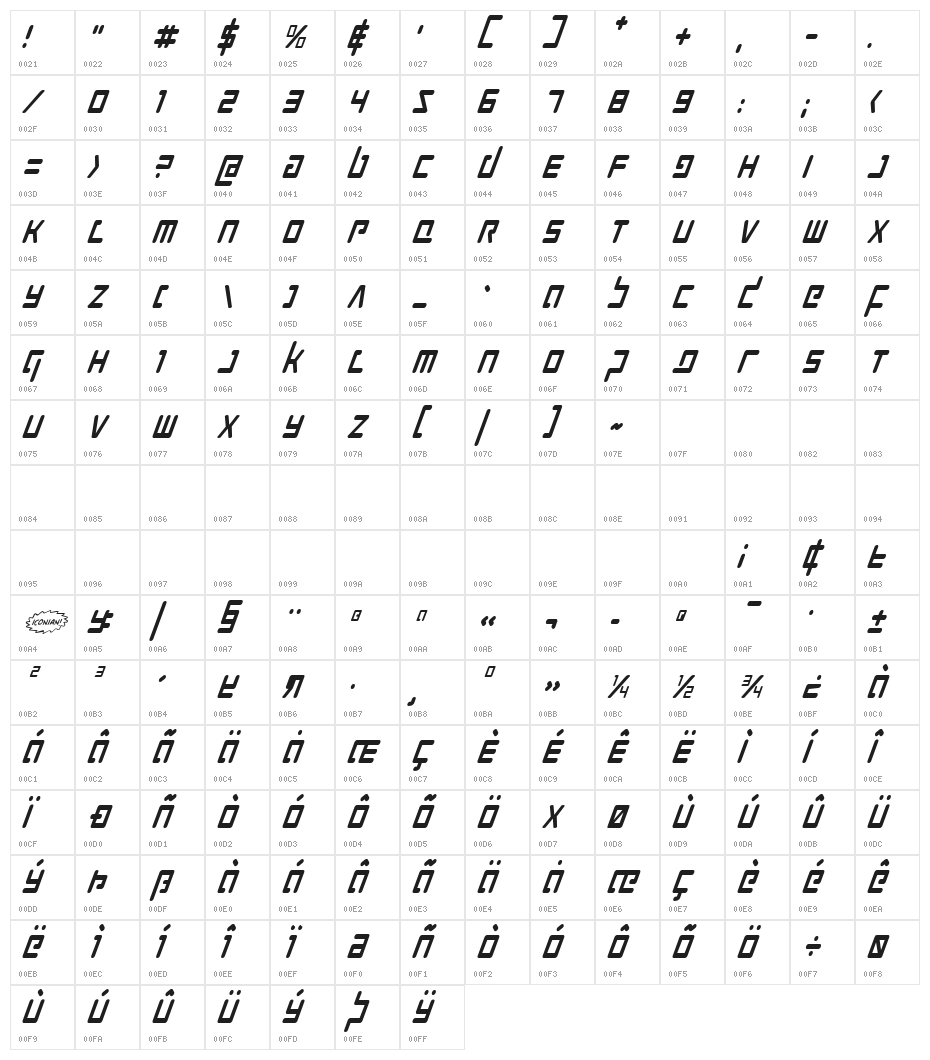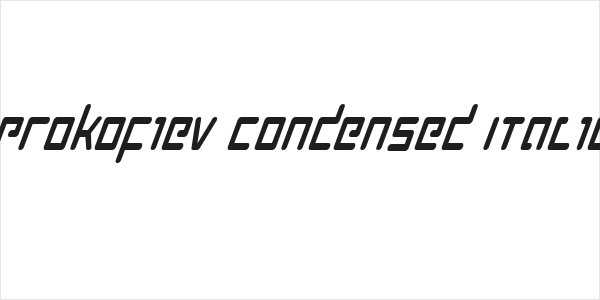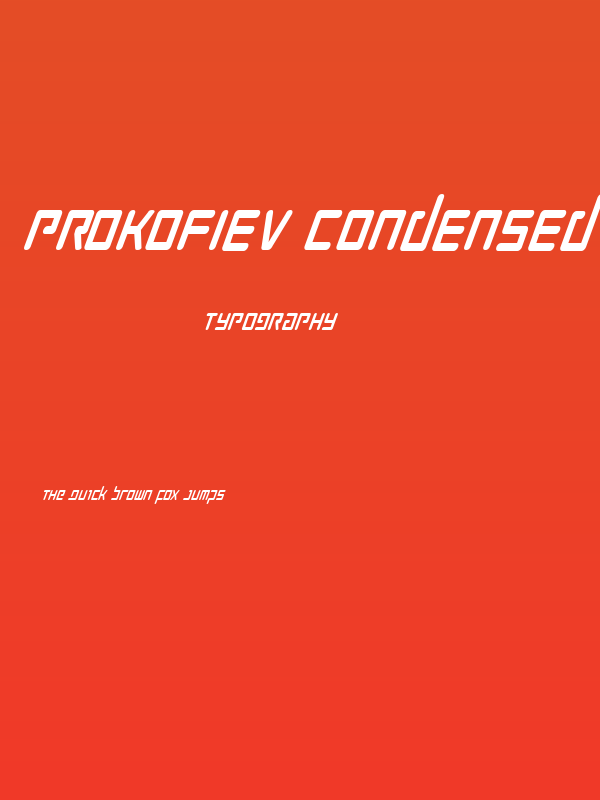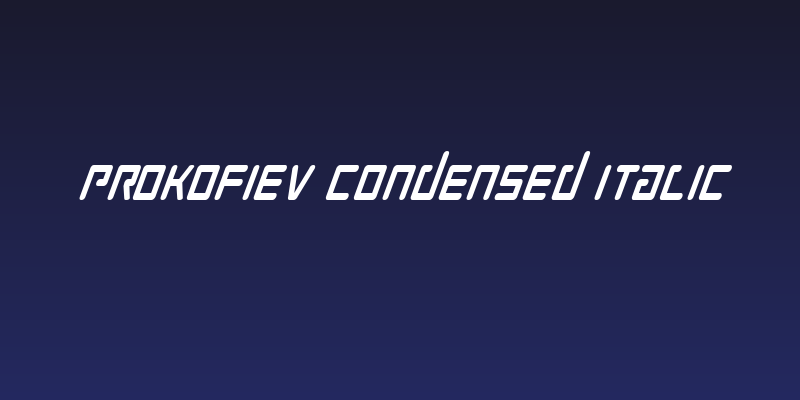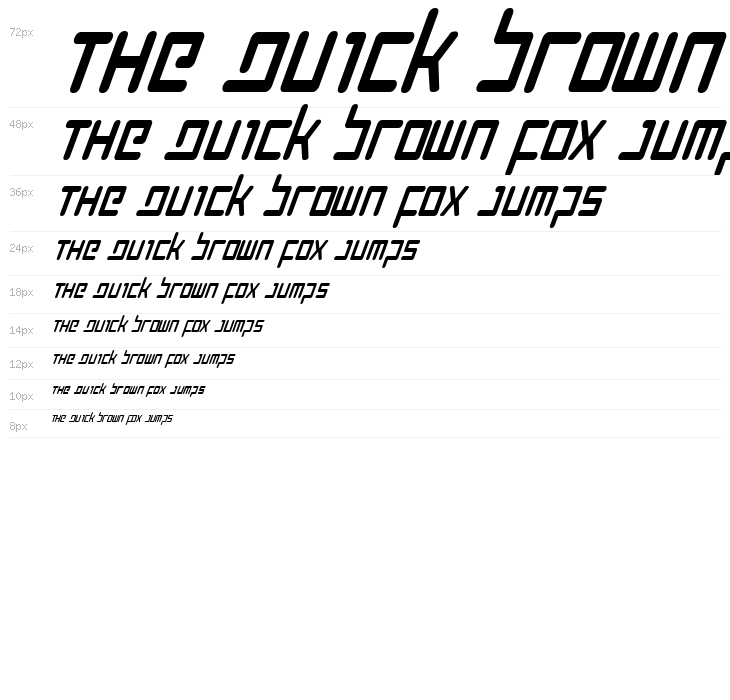
Prokofiev Condensed Italic Font
Prokofiev Condensed Italic Description
This font features a modern, futuristic design with a condensed and italicized style. The characters are sleek and angular, giving a sense of motion and speed. The uppercase and lowercase letters maintain a consistent slant, enhancing the italic effect. The numbers and special characters follow the same stylistic approach, ensuring uniformity across all glyphs. The font's condensed nature allows for efficient use of space, making it ideal for dynamic and impactful designs. The stroke contrast is low, with uniform thickness throughout, contributing to its streamlined appearance.
| Proposed Projects | Ideal for technology branding, sports logos, futuristic posters, and dynamic web design. |